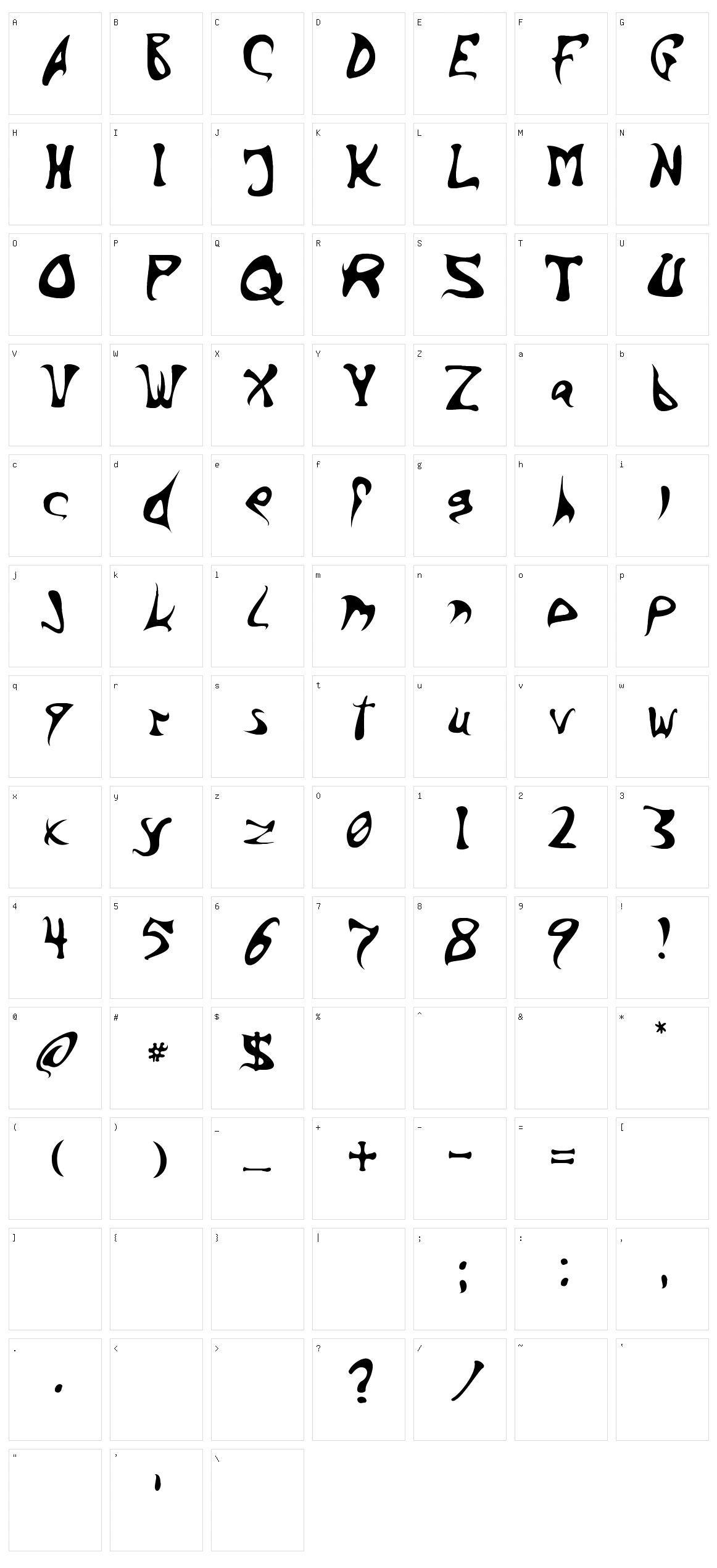
The free font Barbed Ink is carefully designed by Mathieu Klomp, showcasing a thoughtful balance of creativity and usability and falls under the Distorted font style. When you download the ZIP file, it contains only 37.05 KB of font files, making it lightweight and quick to download. Please review the license details below to understand permitted usage and distribution rights. If license information is not available, we recommend using this font for personal projects only or contacting the author directly for commercial usage permissions.